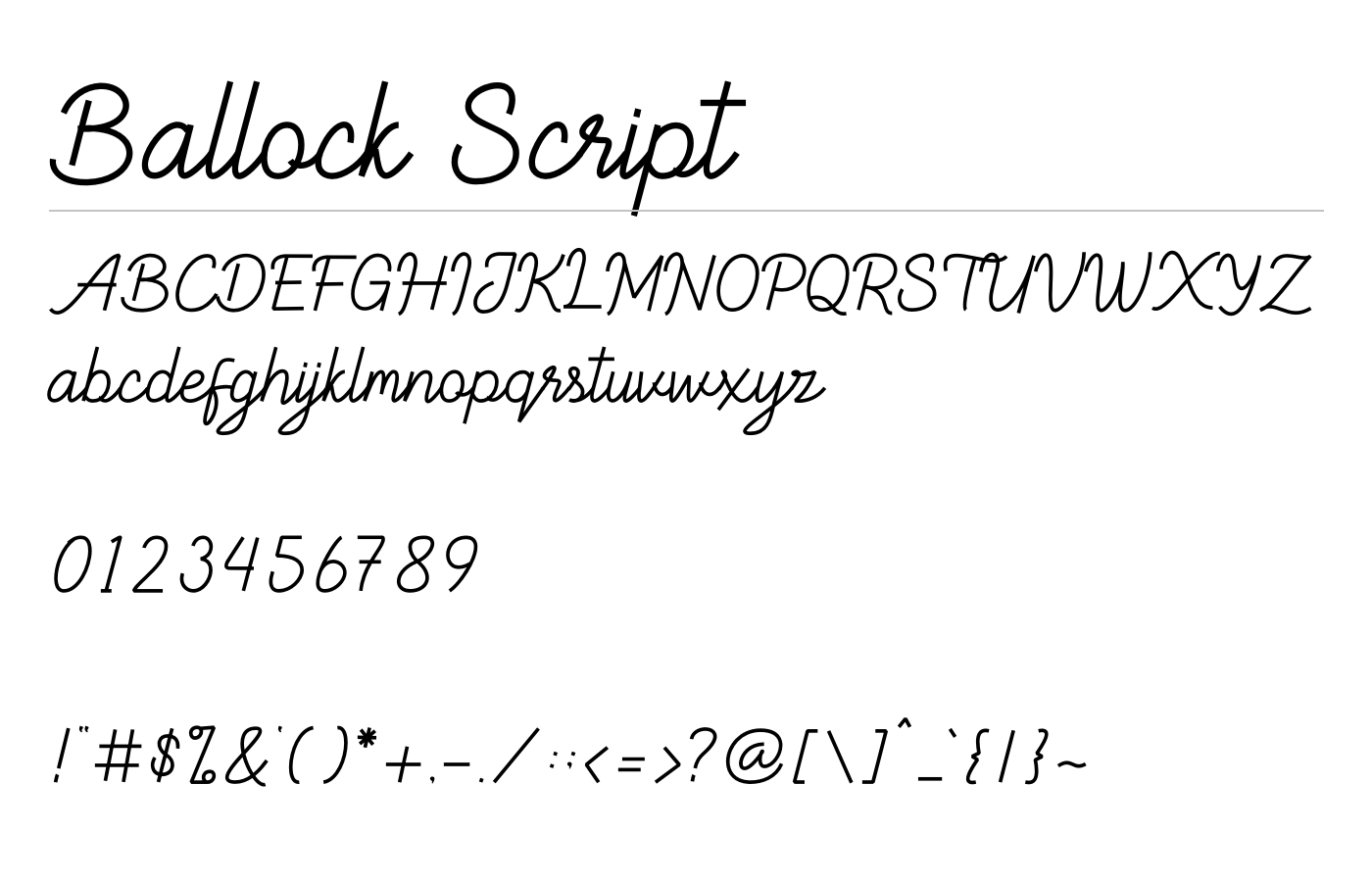
Ballock Script is a delicate and elegant script typeface with a light weight and narrow width, offering a clean and smooth handwritten feel. Its letterforms are connected with soft, flowing strokes and a moderate x-height that enhances readability while maintaining a personal, refined style, making it ideal for invitations, branding, and elegant editorial use. This font works beautifully where a touch of sophistication and handwritten charm is desired without sacrificing clarity.
Ballock Script Font